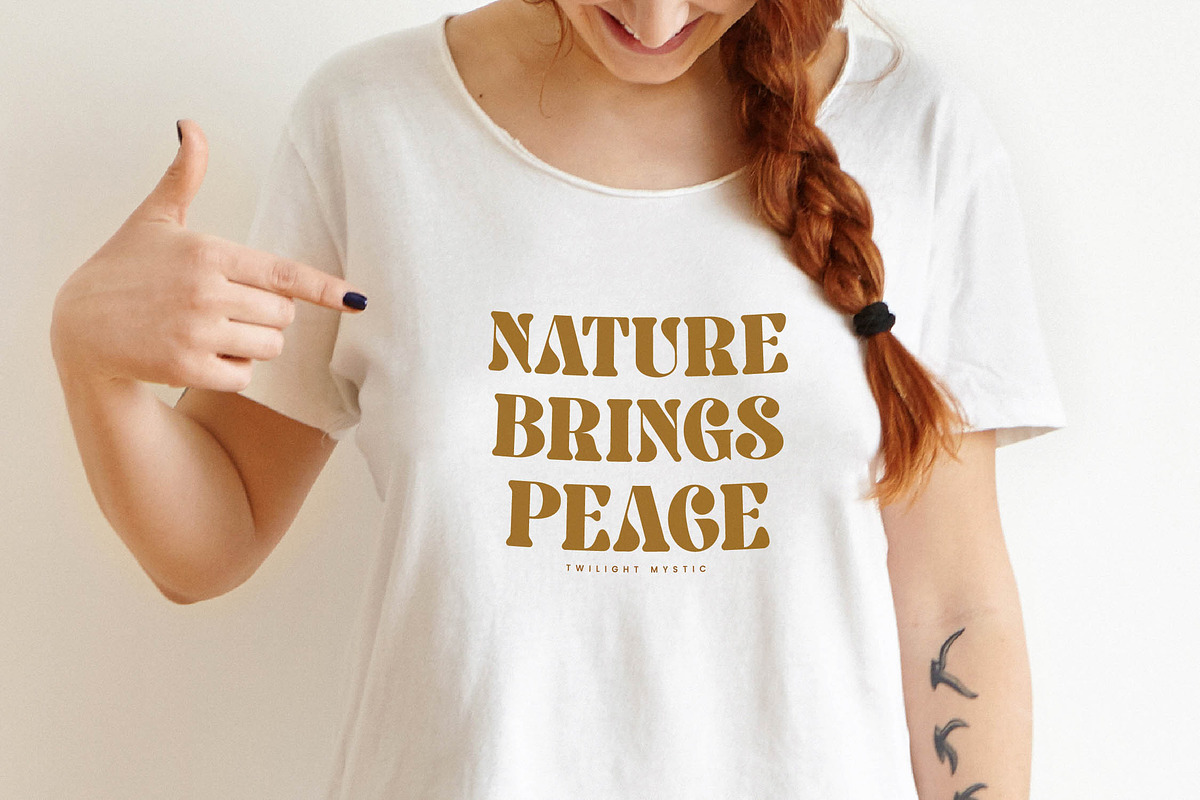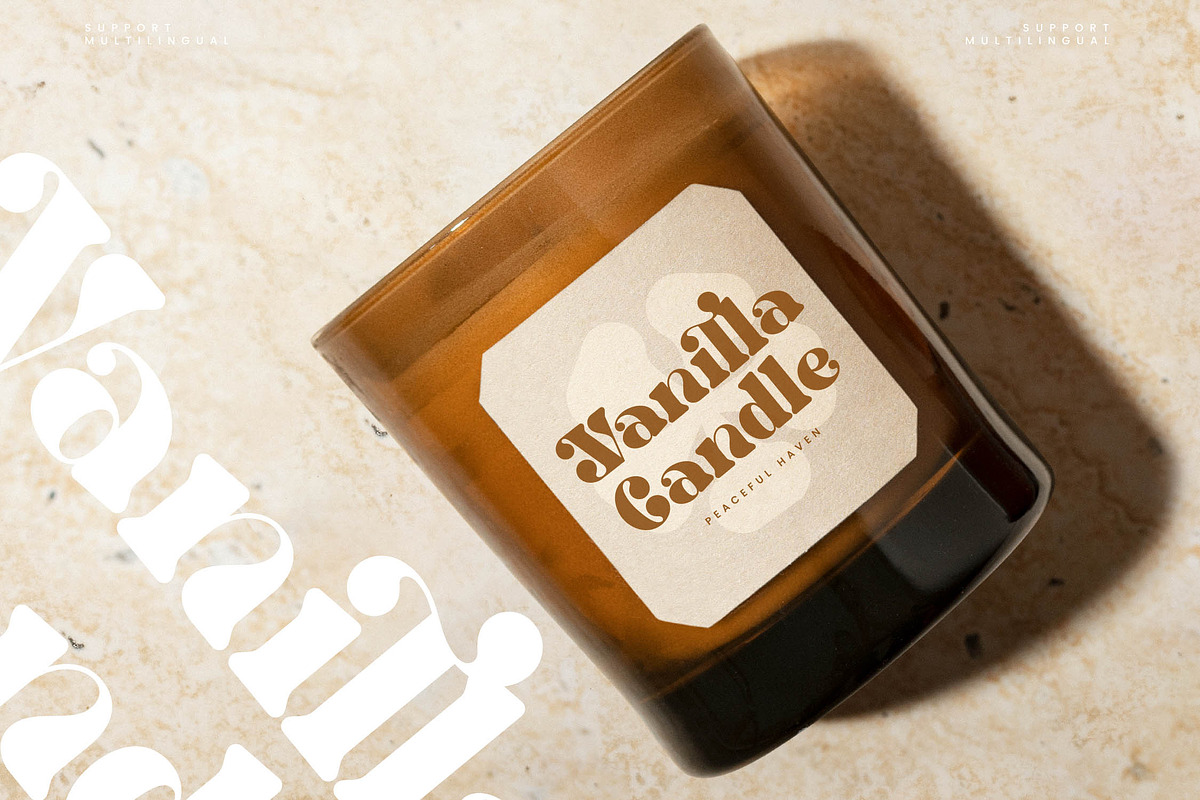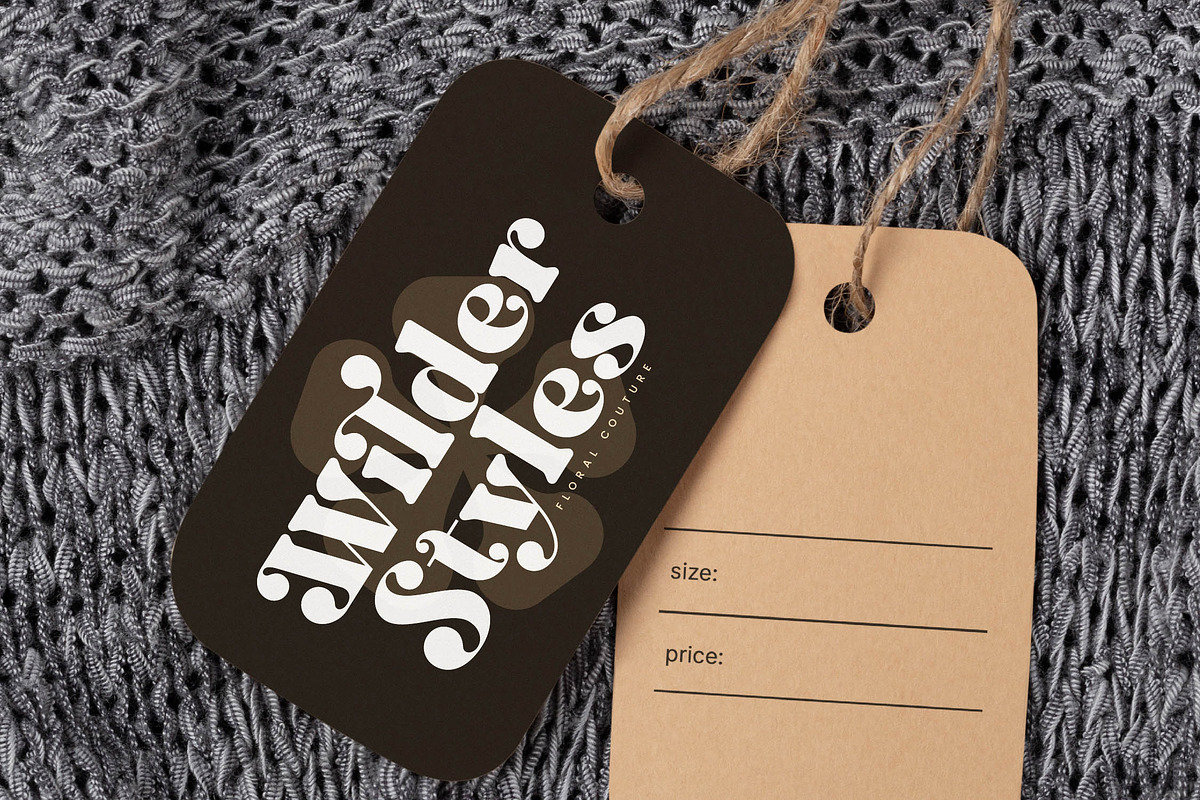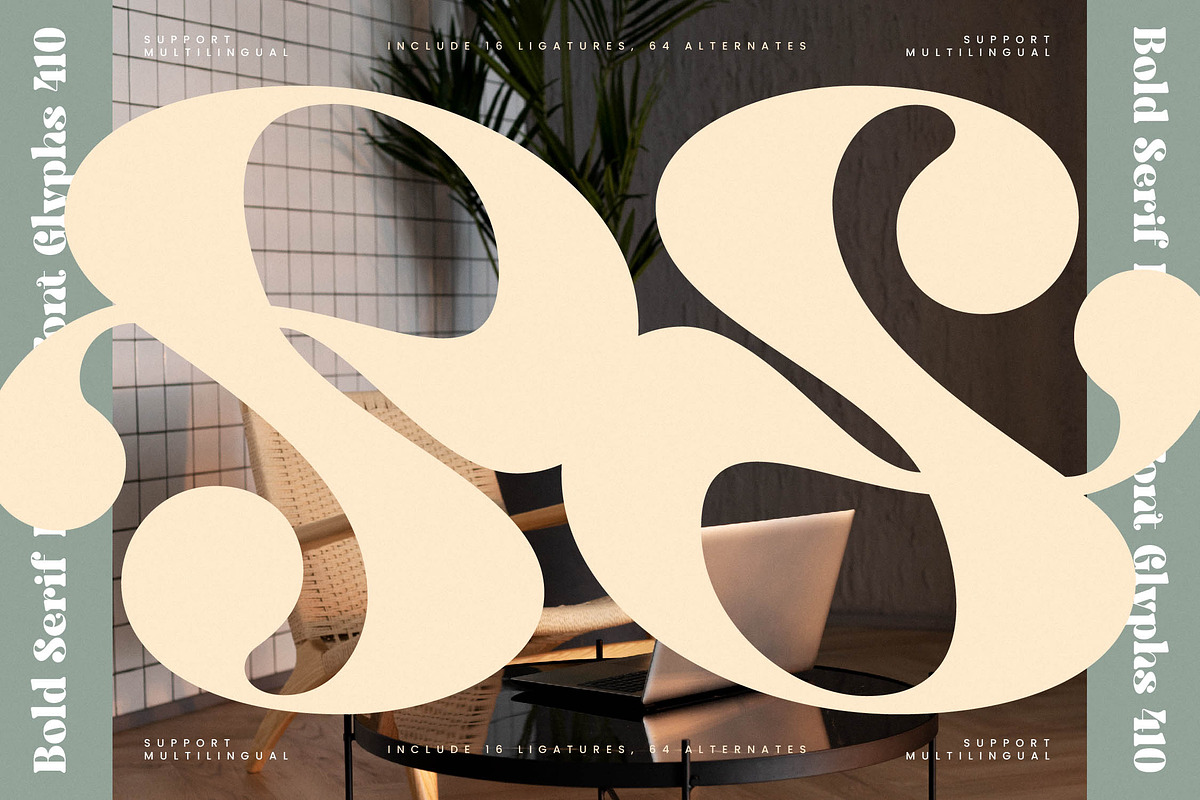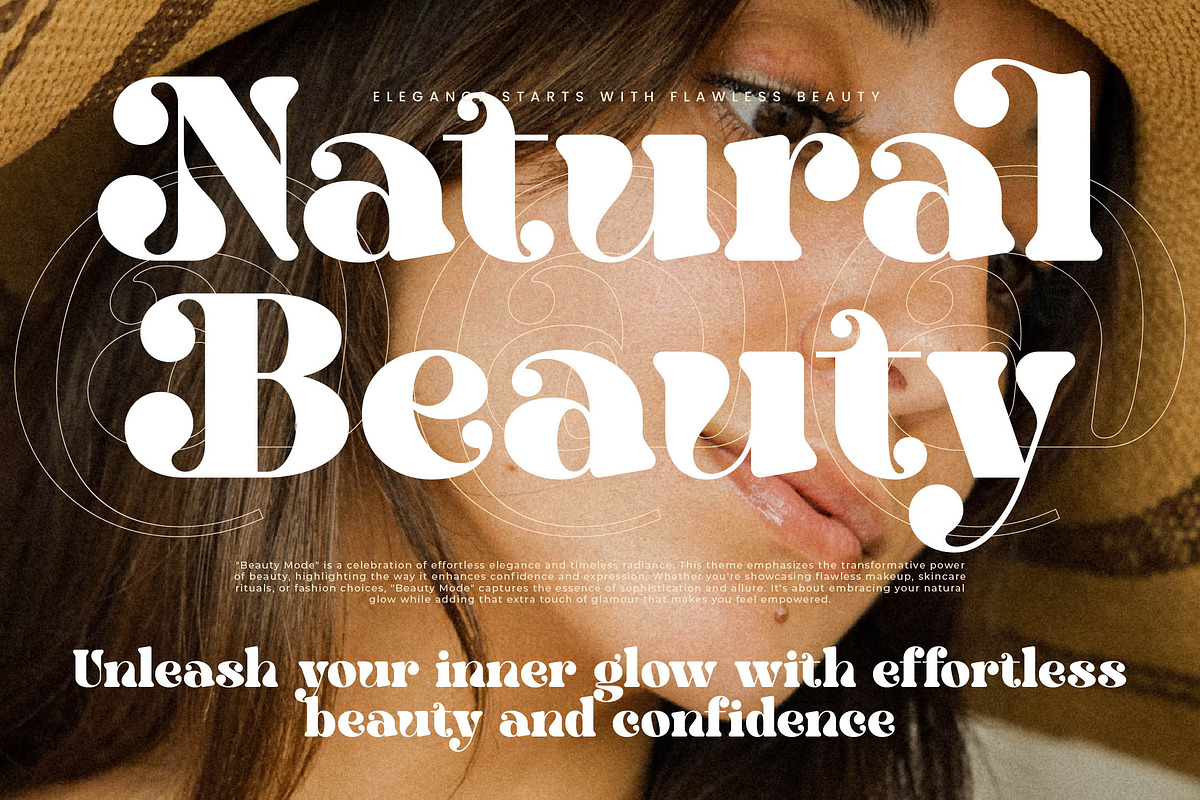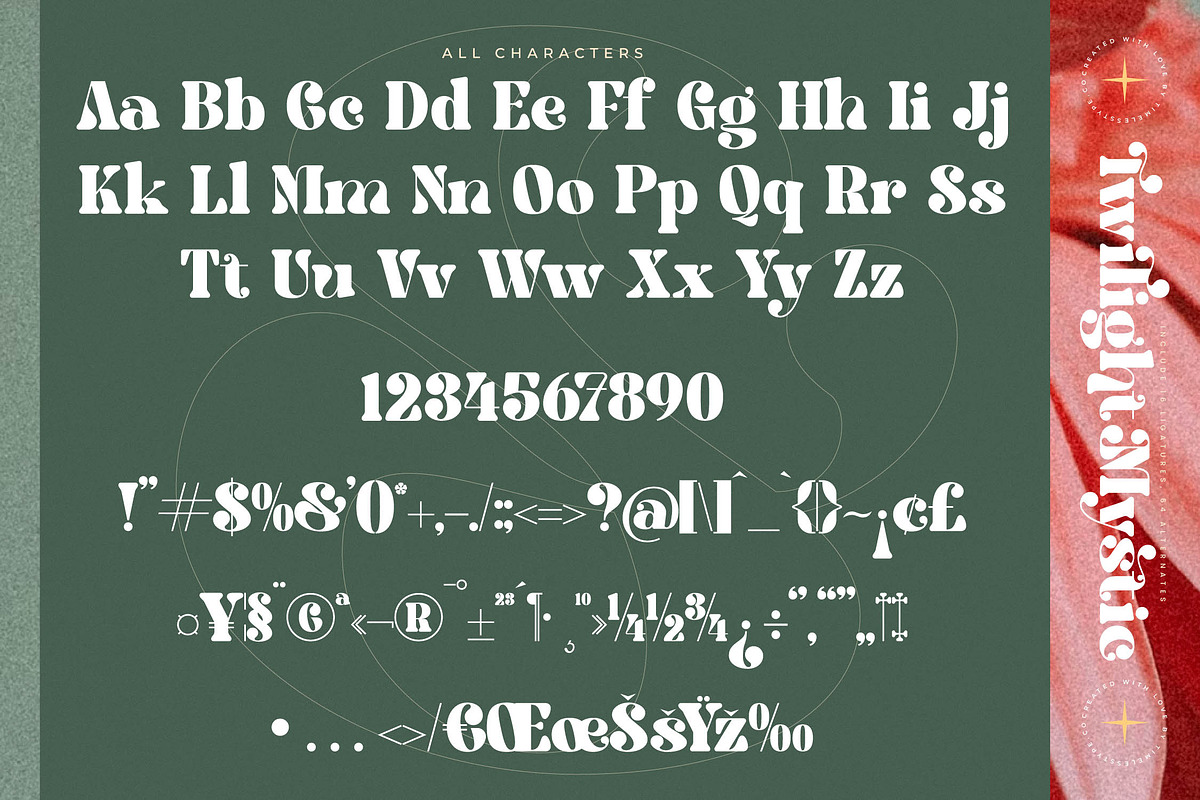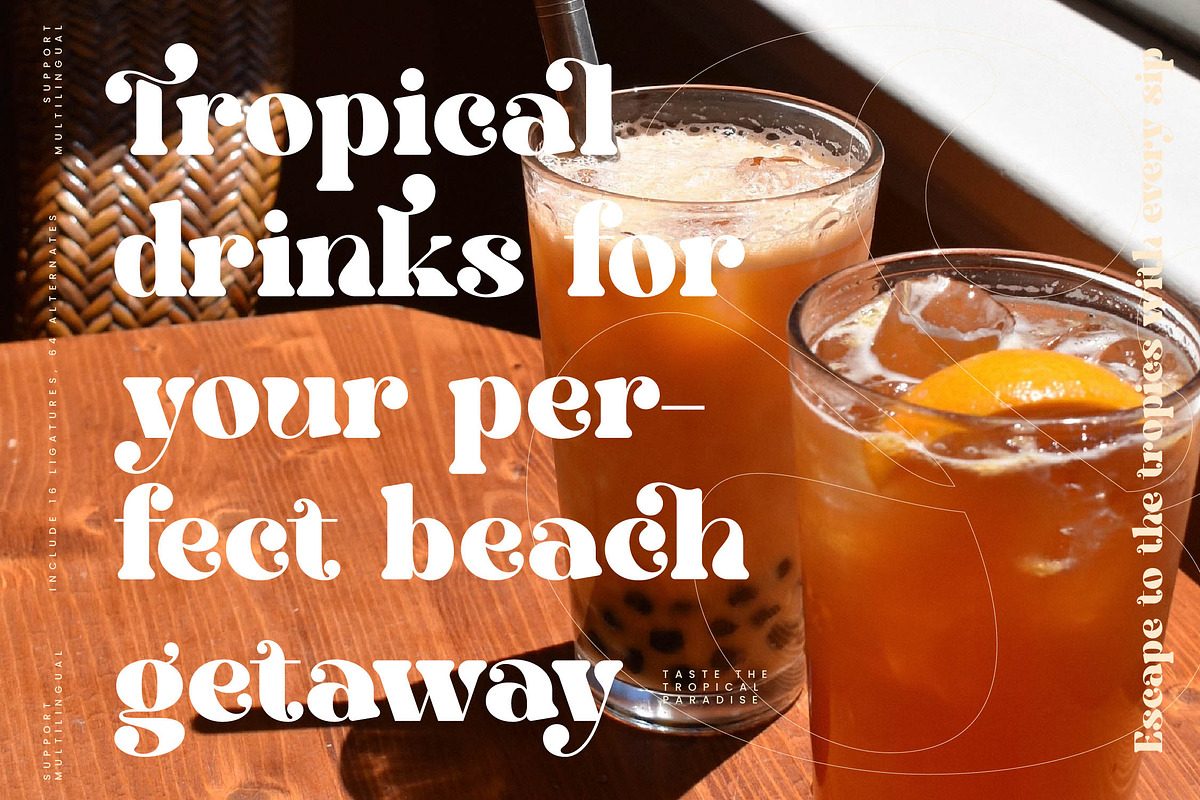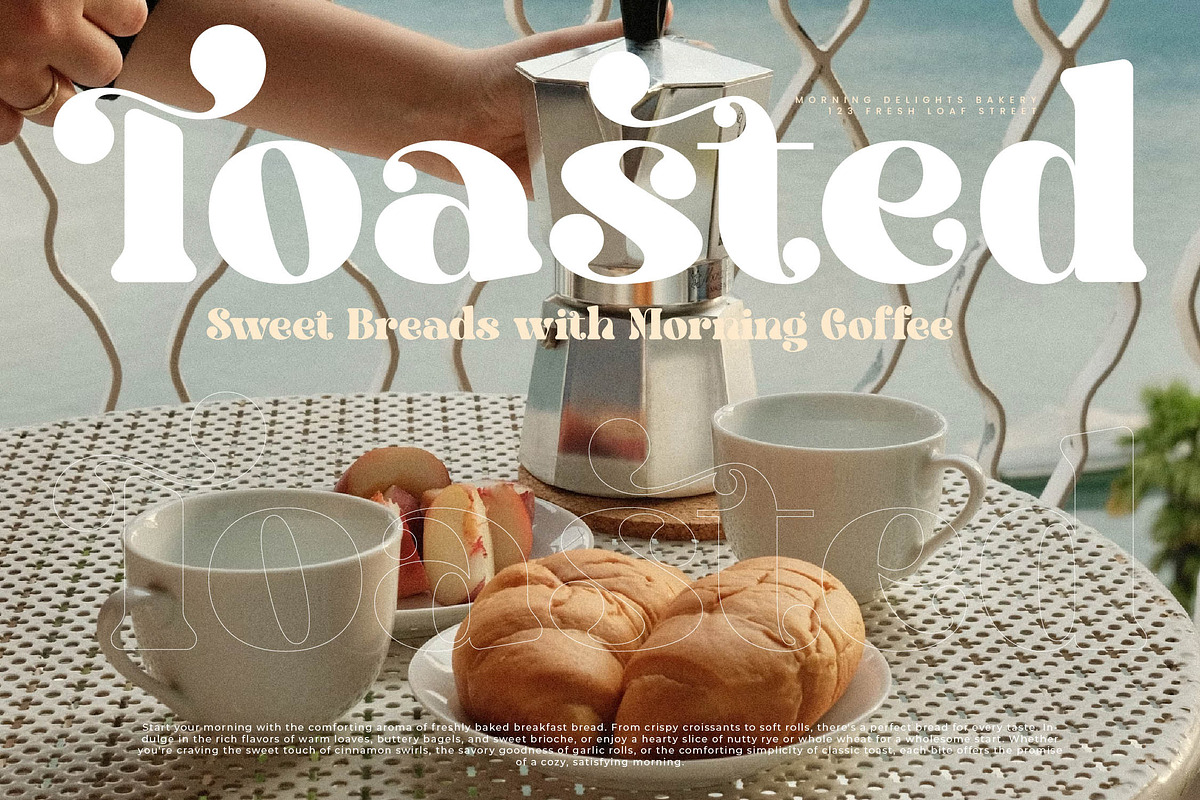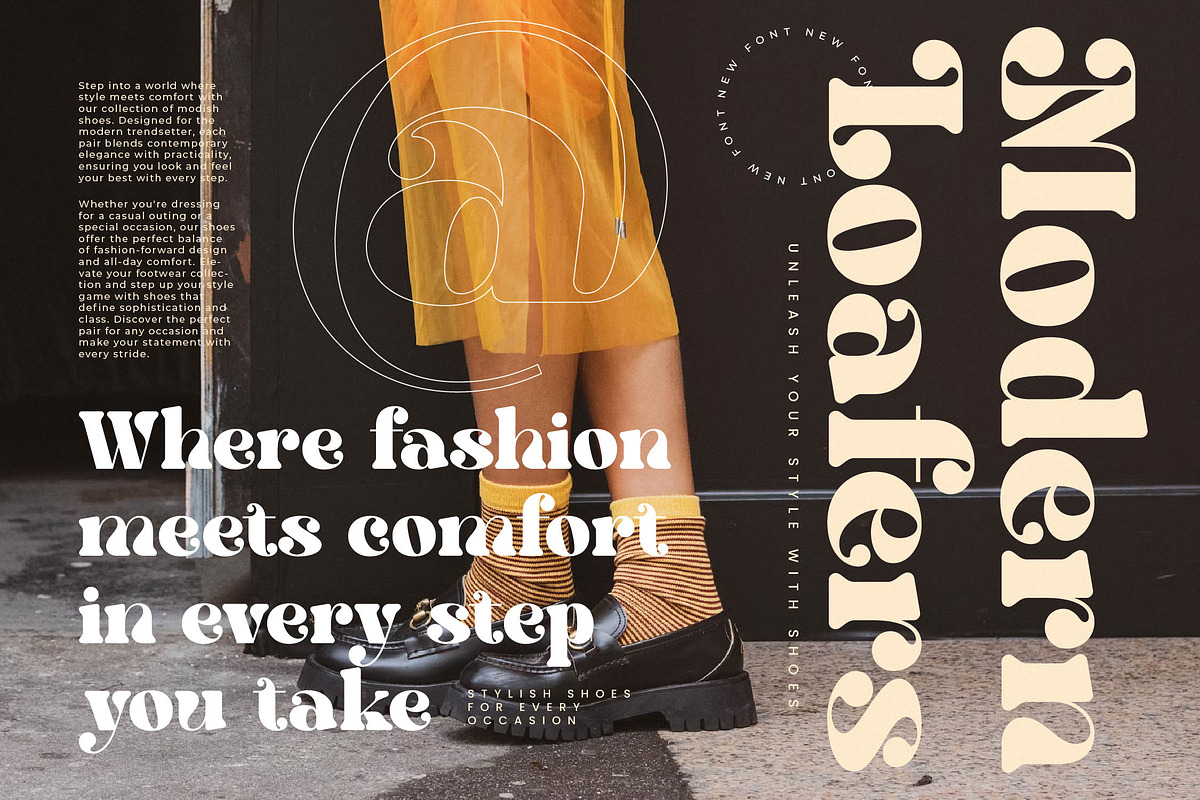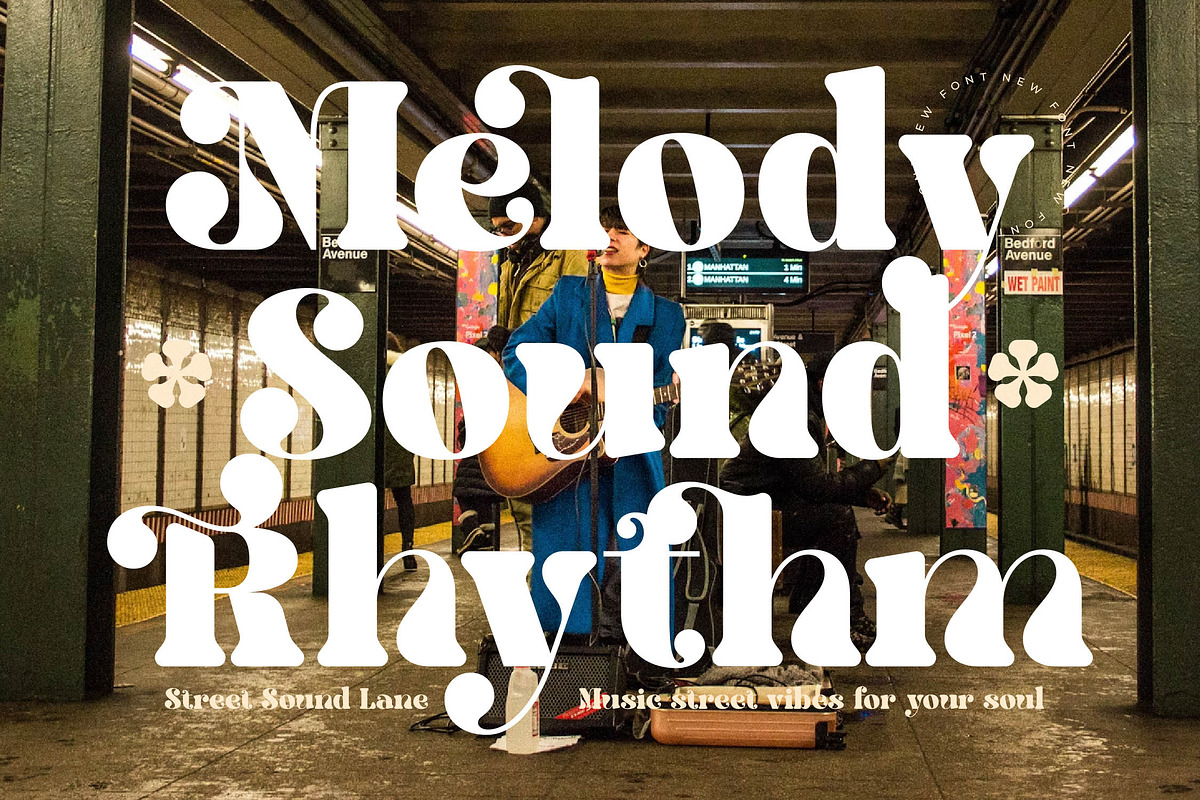
Twilight Mystic Modern Retro Serif
Step into a world of enchantment with Twilight Mystic, a typeface that seamlessly blends timeless elegance with a touch of mystical charm. This font is a love letter to dreamers and creators, offering a sophisticated silhouette that brings confidence and magic to every creative canvas.
Inspired by the soft transitions of the golden hour and the fluid artistry of the 1970s, this typeface captures an atmosphere of ethereal beauty. Its design roots are planted in the nostalgia of vintage posters while reaching toward the future of high-end digital aesthetics.
Crafted as a modern serif display, this font provides a premium luxury typography experience defined by its high-contrast serif anatomy. It is an essential editorial font that ensures a significant branding impact, making every headline feel like a bespoke piece of art.
Aligning perfectly with the current modern serif trend, this typeface is at the forefront of the movement toward character-driven typography. It stands out among editorial display fonts by offering a unique visual rhythm that balances decorative flourishes with professional structure.
This versatile typeface is the perfect choice for professional logo design and cohesive branding projects that require a signature look. It performs beautifully in editorial spreads, luxury packaging, romantic wedding invitations, and high-fashion layouts where personality is paramount.
Beyond its stunning aesthetics, the font is a technical powerhouse featuring 18 unique ligatures and 54 stylish alternates for ultimate customization. With 410 glyphs, it offers full multilingual support and international characters, making it a global solution for modern designers.
- Ligature 16 Alternate 64